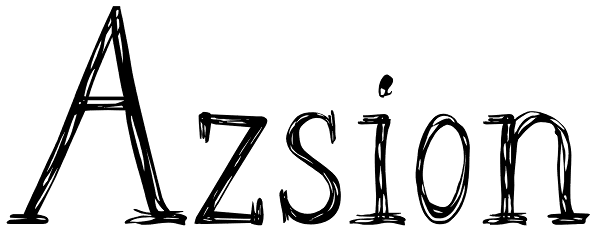
Azsion
From Okaycat is the Azsion font, hand-lettered with loving hand in a distinctive style. This font is artistically textured with great detail, yet highly legible with a soft pleasant look. Azsion matches well with Okaycat font, Azsitra. Illustrated...